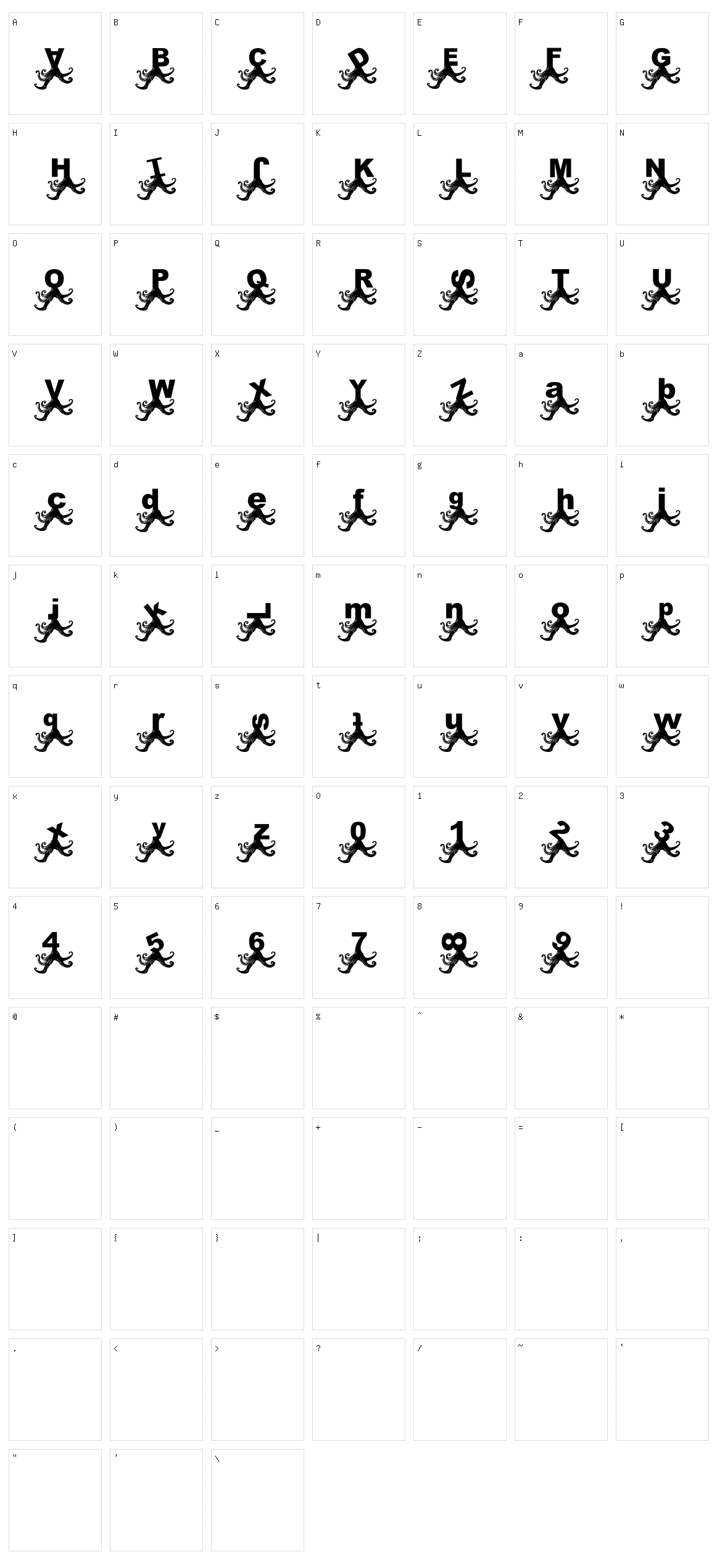
The free font Paul Pulpo is carefully designed by Andrea Bartsch, showcasing a thoughtful balance of creativity and usability and falls under the Decorative font style. When you download the ZIP file, it contains only 83.92 KB of font files, making it lightweight and quick to download. Please review the license details below to understand permitted usage and distribution rights. If license information is not available, we recommend using this font for personal projects only or contacting the author directly for commercial usage permissions.